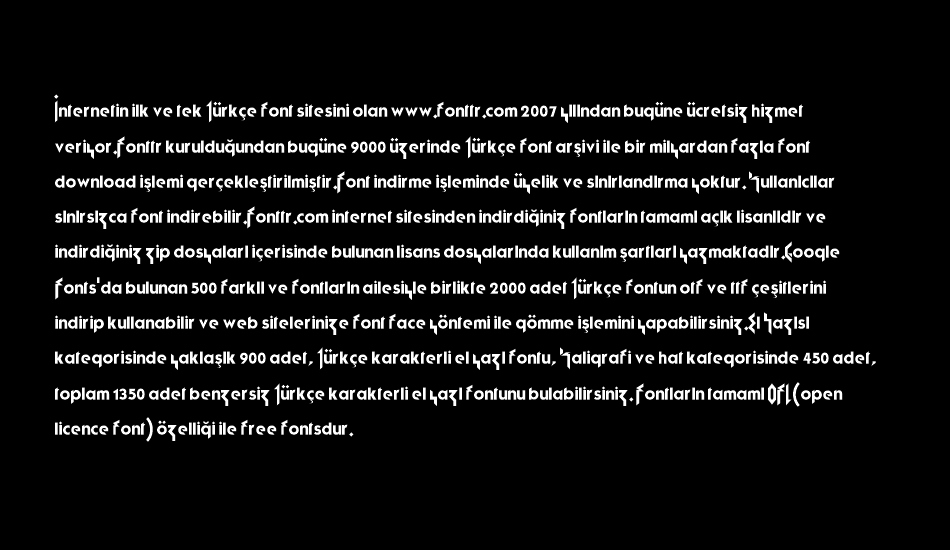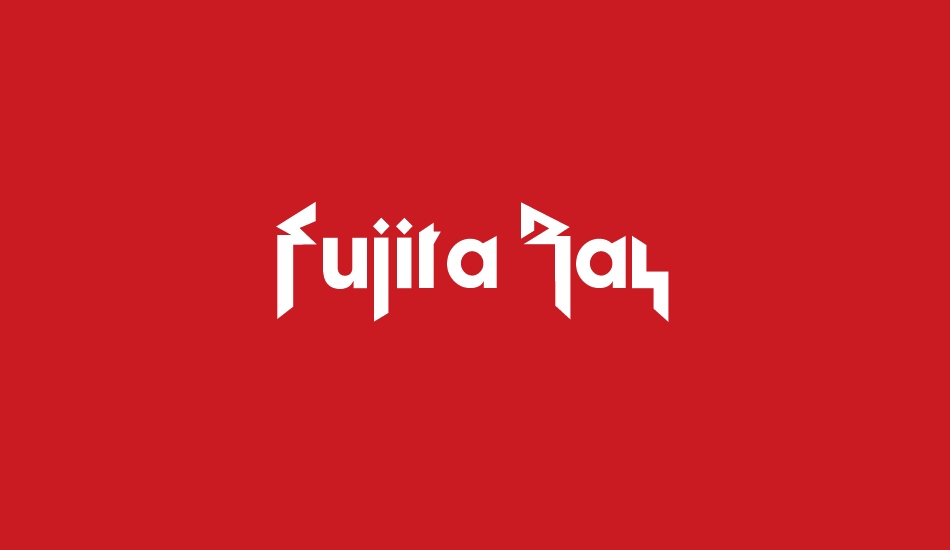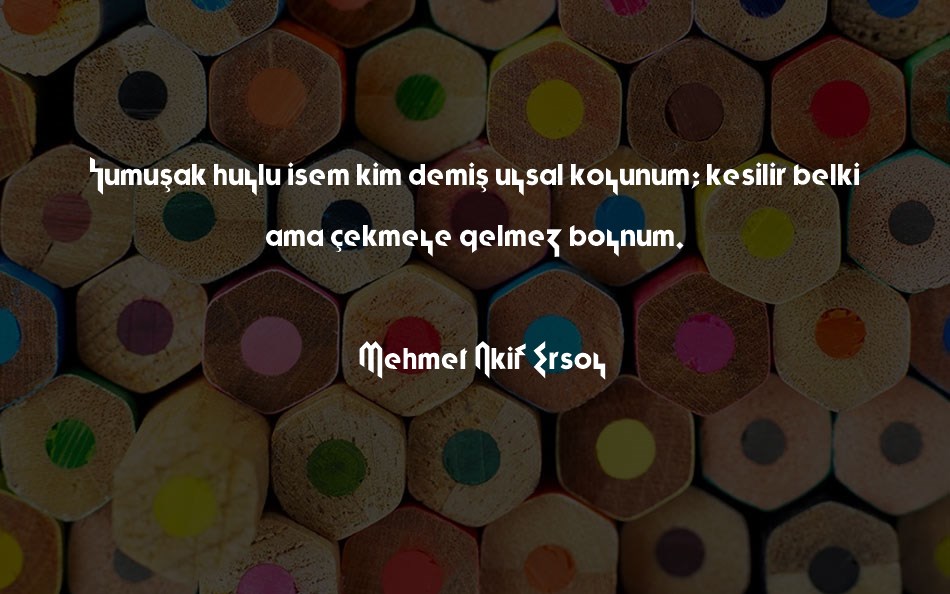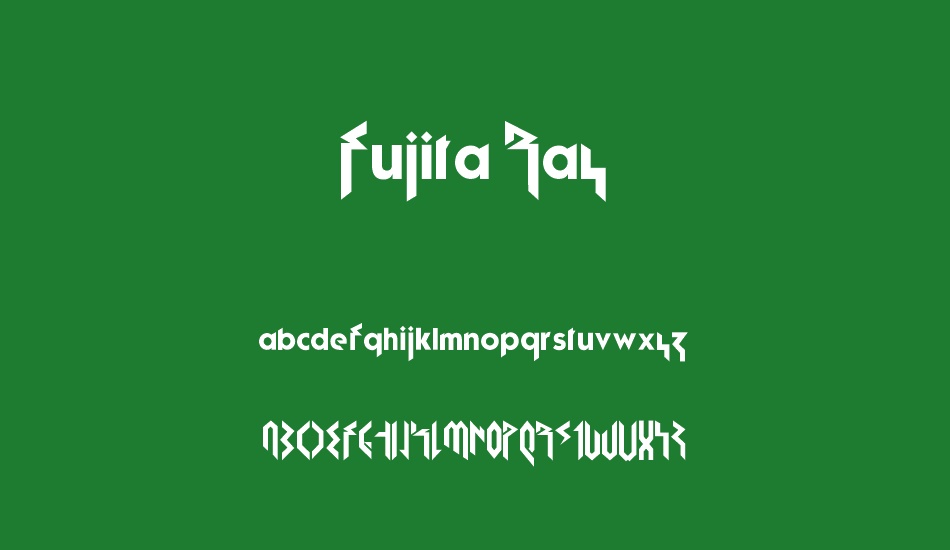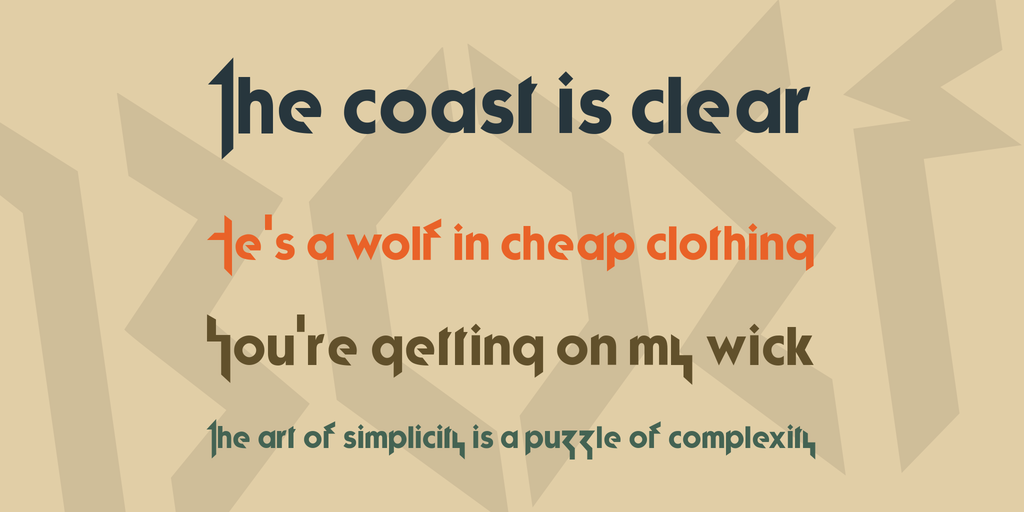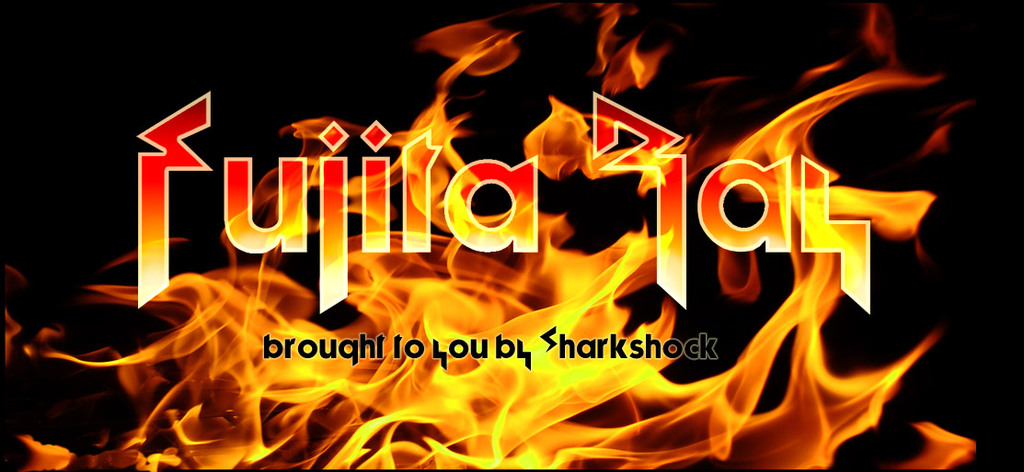
Fujita Ray Font font
Fujita Ray font
Greetings font fans. Back is an old classic that's gotten a facelift after 14 years. Previous released as a demo Fujita Ray now includes a full character set, new glyphs, Eastern European
characters, kerning, and an uppercase facelift. It's not advisable to type in all caps as many of the uppercase members are difficult to read on their own.